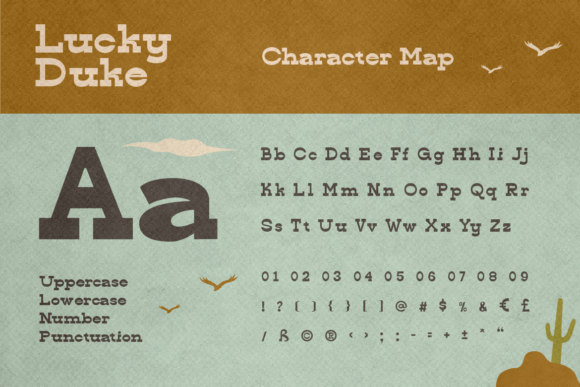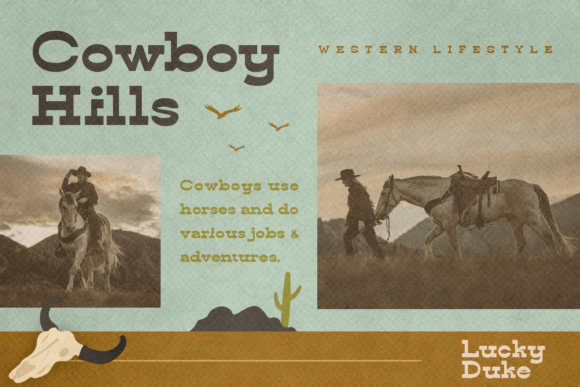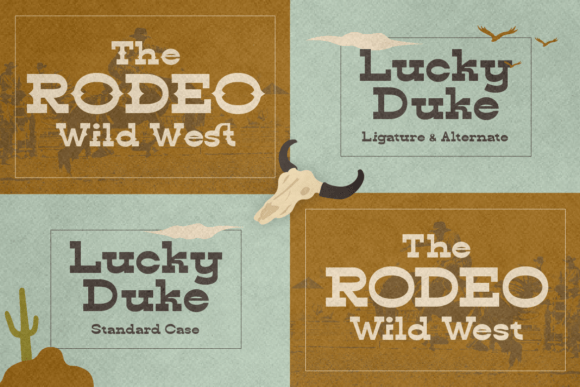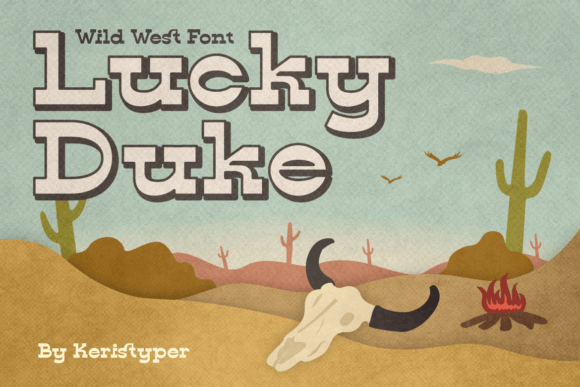
Introduction to Lucky Duke Font
Lucky Duke is a western serif typeface inspired by cowboy wild west styles.
This font is good for logo design, social media, movie titles, book titles, short text, and long text letters It is also good for your secondary text.